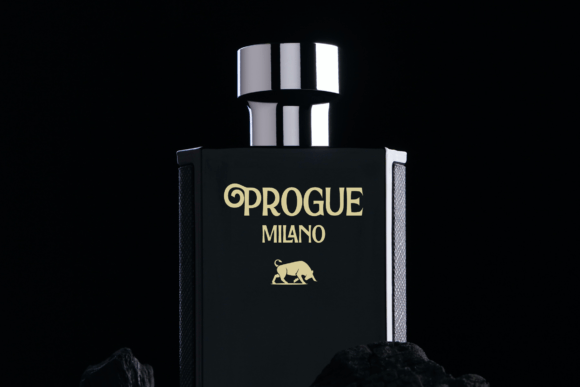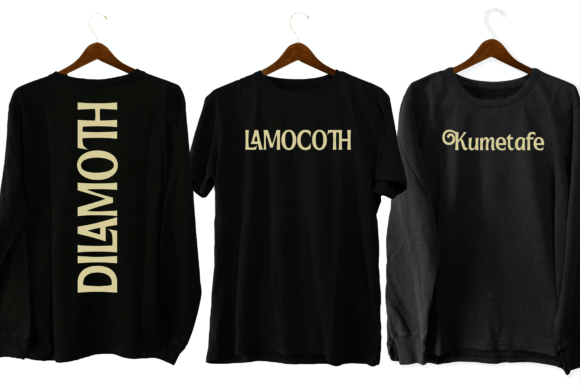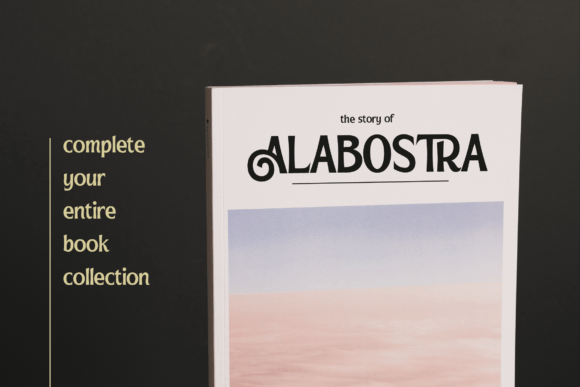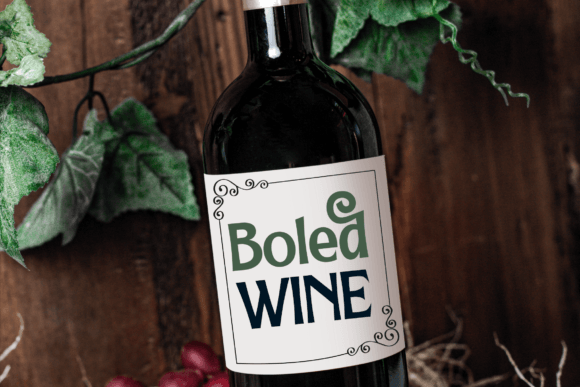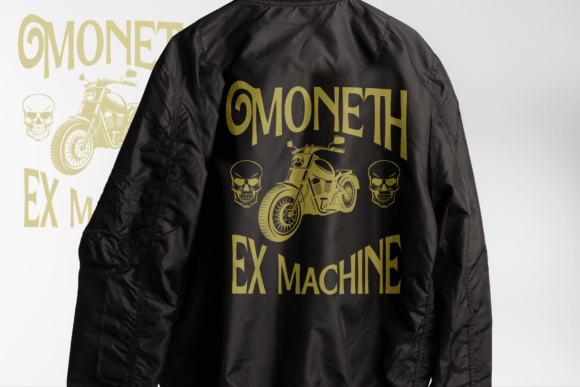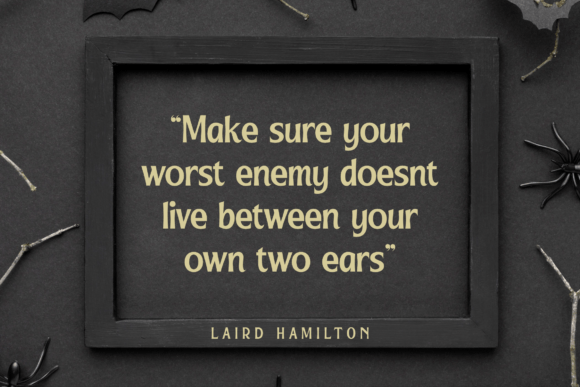
Introduction to Huntrela Font
As a designer, there’s nothing quite like the thrill of bringing a creative project to life. It’s the moment when you finally find the perfect font to set the tone for your entire design, and it’s a feeling that’s hard to beat. For me, that moment came when I stumbled upon the Huntrela Font – a stunning, modern serif typeface that instantly elevates any design it’s paired with.
With its unique blend of classic sophistication and modern flair, the Huntrela Font is the perfect addition to any design resource. Whether you’re working on a luxurious logo, a high-quality book or movie title design, or even a fashion brand, this font is sure to make your project stand out. And the best part? It’s available for free download, making it an accessible and valuable resource for designers of all levels.
Key Features of Huntrela Font
- Unique and creative font design ideal for various design projects, including posters, logos, and packaging.
- Designed to be a valuable design resource for creative projects, offering a distinctive and eye-catching visual style.
Honest Review: Huntrela Font
I recently came across the Huntrela Font, and I’m excited to share my honest thoughts on this design resource. As a designer, I’m always on the lookout for high-quality fonts that can elevate my creative projects. In this review, I’ll break down what works well and what could be improved.
- Unique design: The Huntrela Font has a distinctive style that sets it apart from other fonts. Its irregular lines and curves add a touch of personality to any text.
- Limited font sizes: The Huntrela Font seems to work best at larger font sizes. At smaller sizes, the lines can become blurry and difficult to read.
- No bold or italic styles: The font only comes in regular style, which may limit its use in certain design projects.
Overall, I’m impressed with the Huntrela Font’s unique design and high-quality output. While it has some limitations, it’s still a valuable addition to any designer’s toolkit. If you’re looking for a free font that can add some flair to your creative projects, the Huntrela Font is definitely worth checking out.
Tips for Getting the Most Out of Huntrela Font
To get the most out of the Huntrela Font, experiment with different font sizes, colors, and styles. You can also pair it with other design elements, such as images or graphics, to create a visually appealing design.
The Huntrela Font is suitable for various creative projects, including logos, brochures, flyers, and social media graphics. Its high-quality design makes it an ideal choice for professional and personal projects alike.